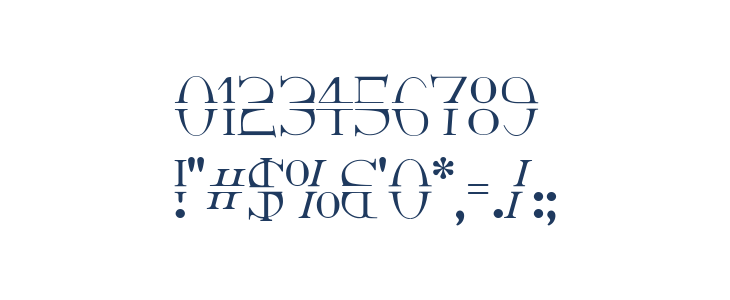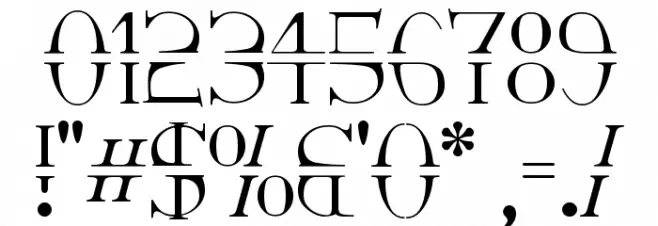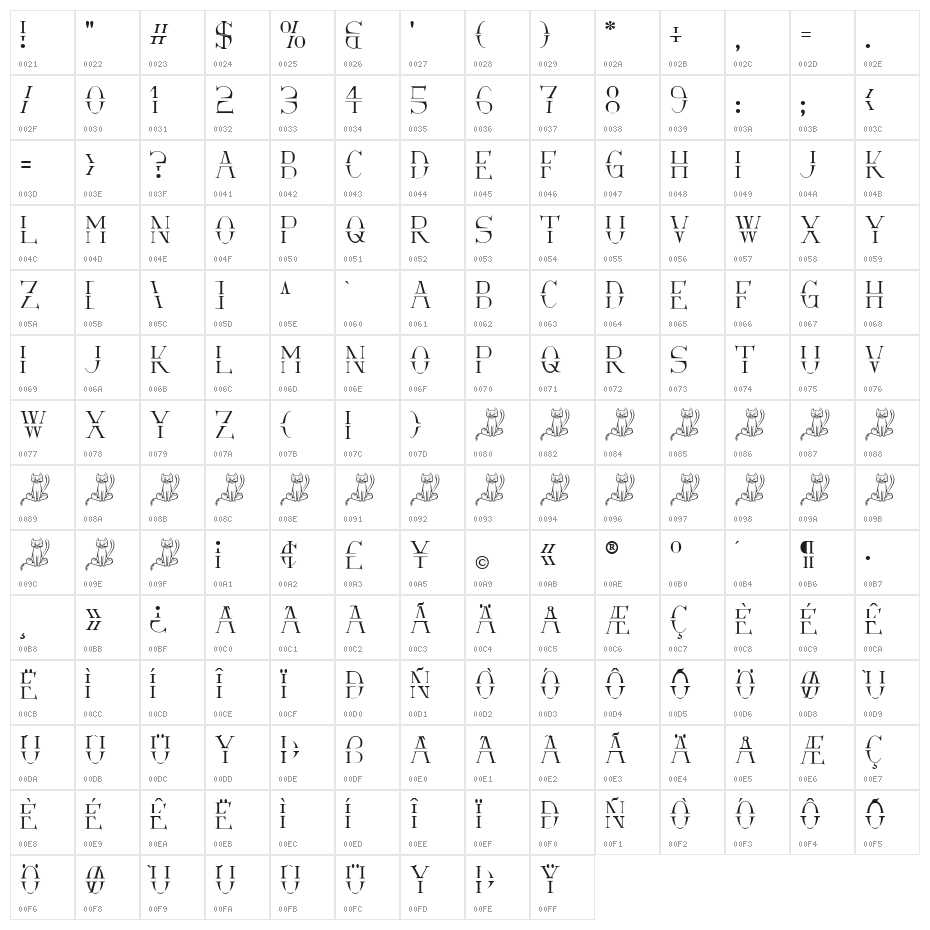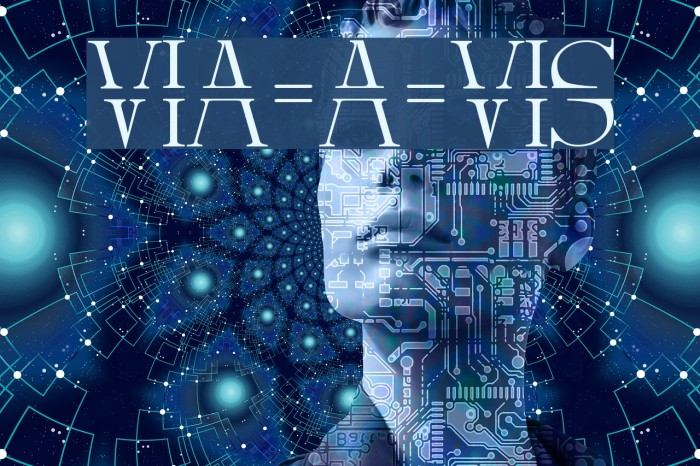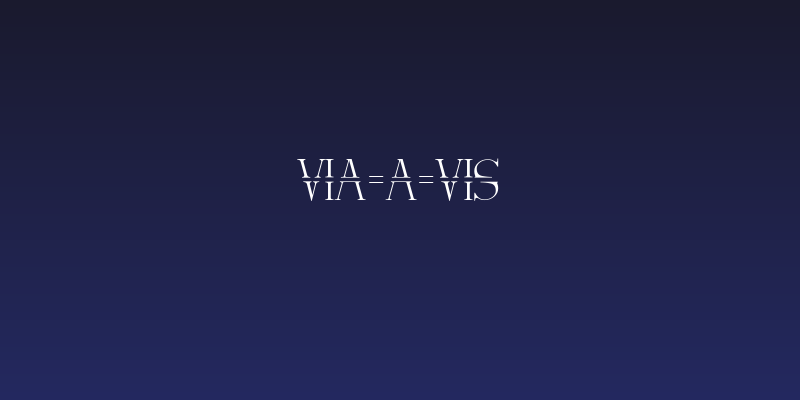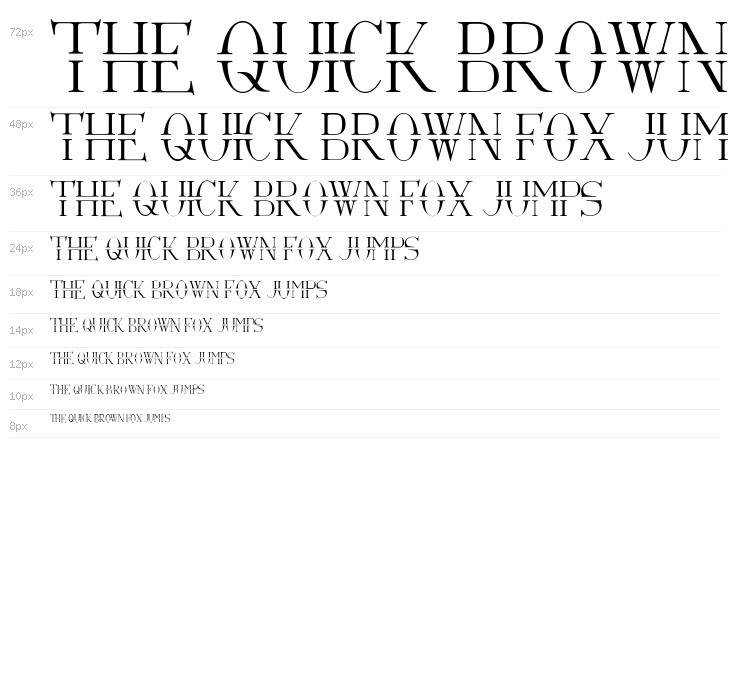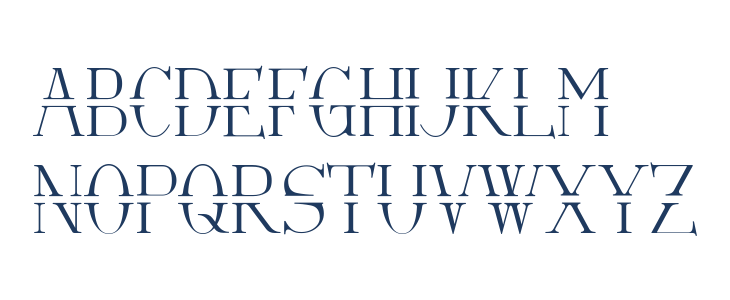
Via-A-Vis Font
Via-A-Vis Description
This font features a unique and artistic design with a modern twist. The characters are split horizontally, creating a distinctive visual effect that draws attention. The upper and lower halves of each letter are slightly offset, adding to the font's dynamic appearance. The strokes are bold and consistent, providing a strong presence. The numbers and special characters follow the same split design, ensuring uniformity across all elements. This font is perfect for creative projects that require a bold statement.